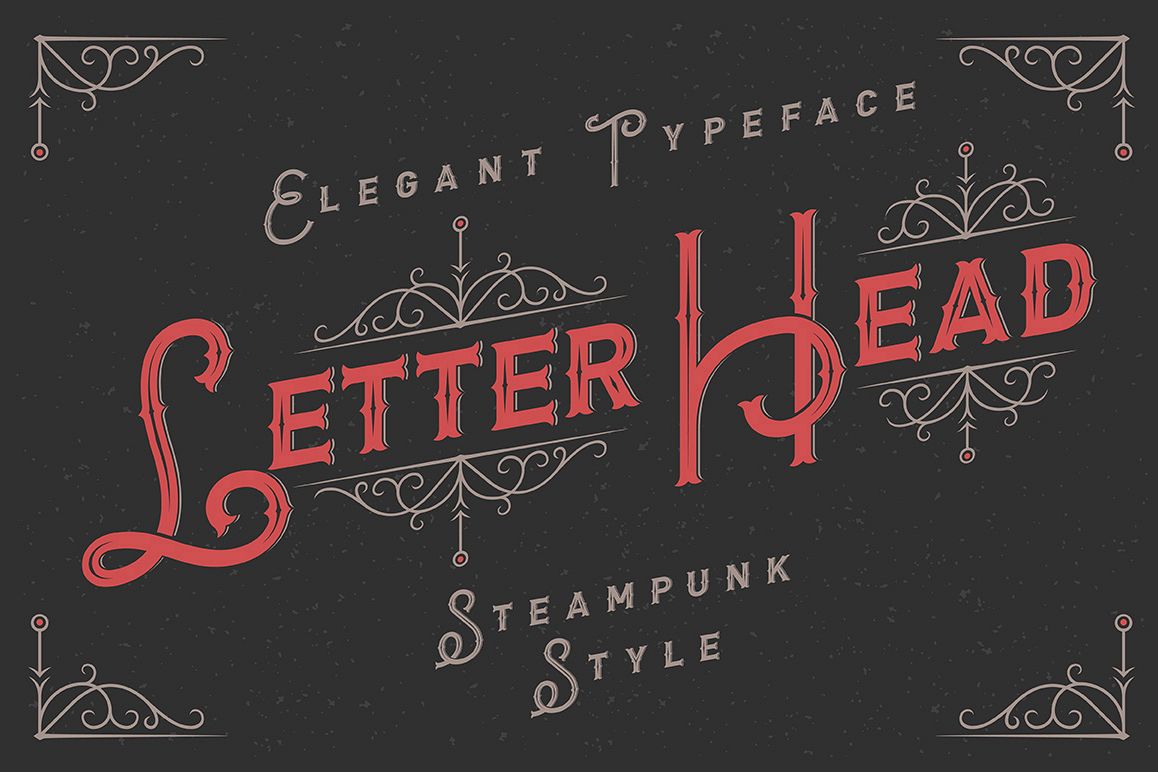
Hello! Here is a classic look typeface named "Letterhead". It's made in steampunk style with vintage vector ornate.
Update: added numbers and other basic glyphs (watch the fourth screenshot)